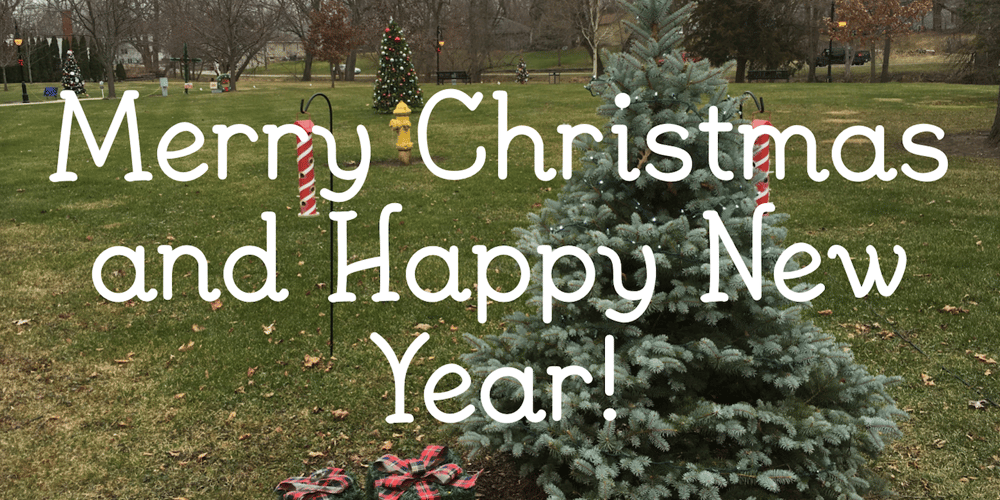
JennerikInformal
JennerikInformal font
JennerikInformal Font Family was designed by Robert Schenk and published by Ingrimayne Type. JennerikInformal contains 3 styles and family package options. JennerikInfml is a friendly, casual typeface family that has the appearance of neat hand printing. It began as the italics to Jennerik, but I ended up separating it and giving it a different set of upper-case letters. Although its lower-case letters were designed as italics, it was originally published in 1992 with three weights as upright letters without a slant or skew. The revision of 2020 added the oblique or slanted styles.